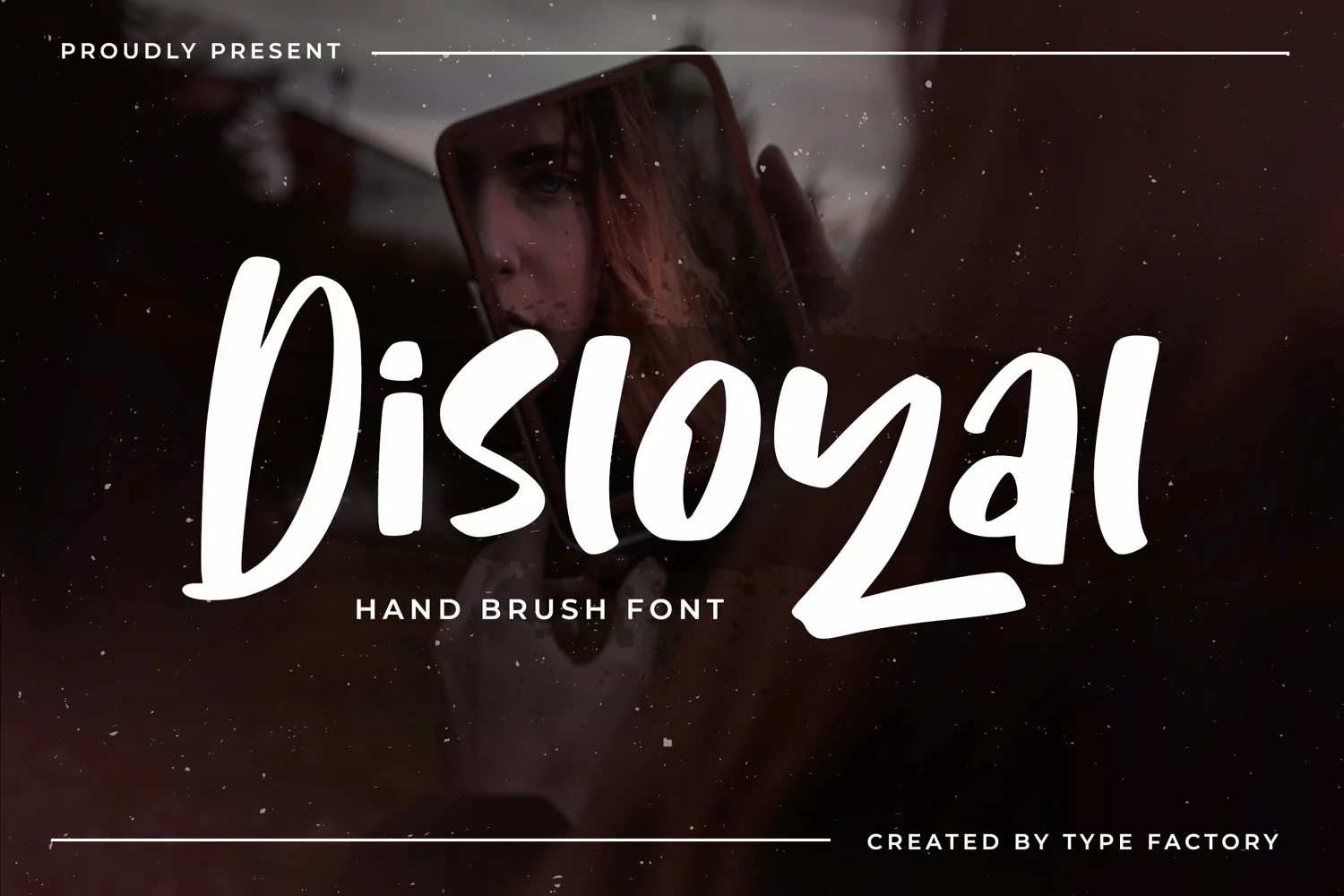
Created By Typefactory
Disloyal - Hand Brush Font
Disloyal is a modern handbrush typeface.
Perfectly suitable for creating Brands, quotes, album cover, Art, lifestyle designs such as logos, title, and magazine,s and more.